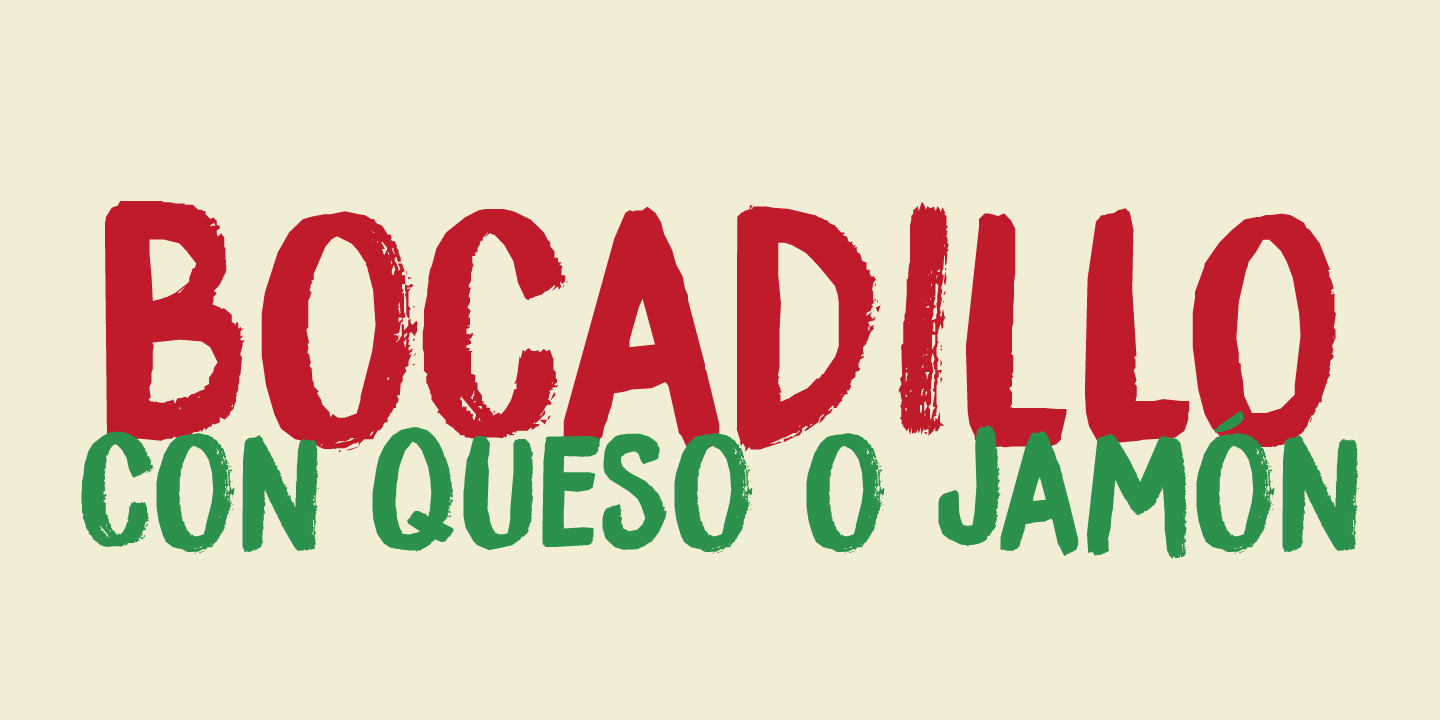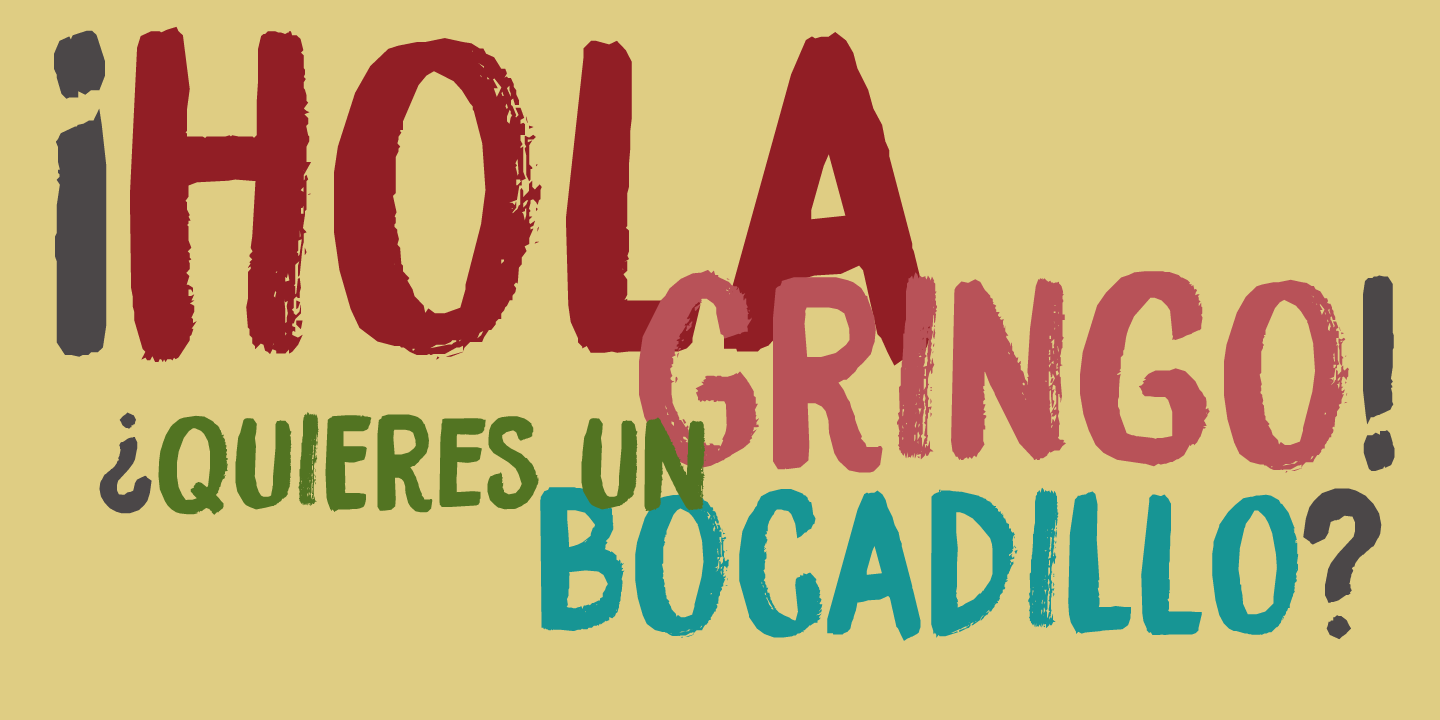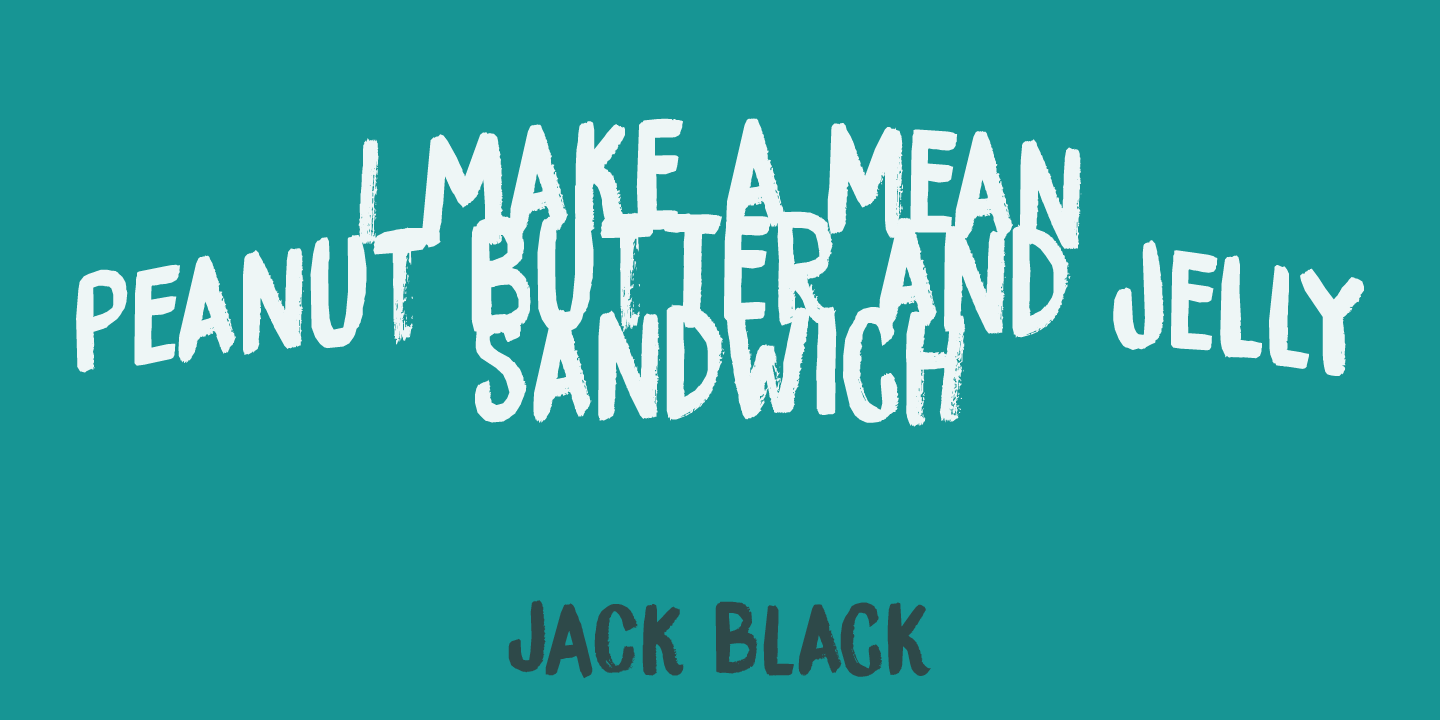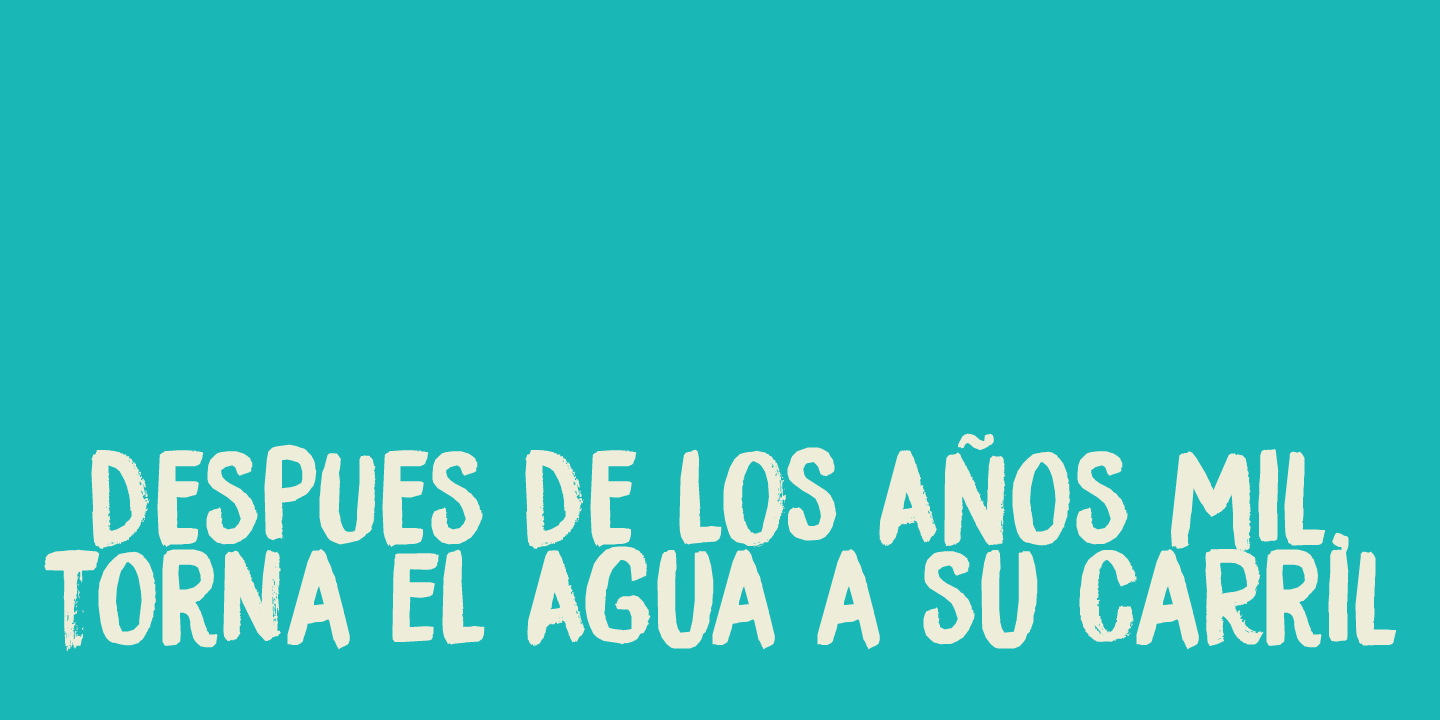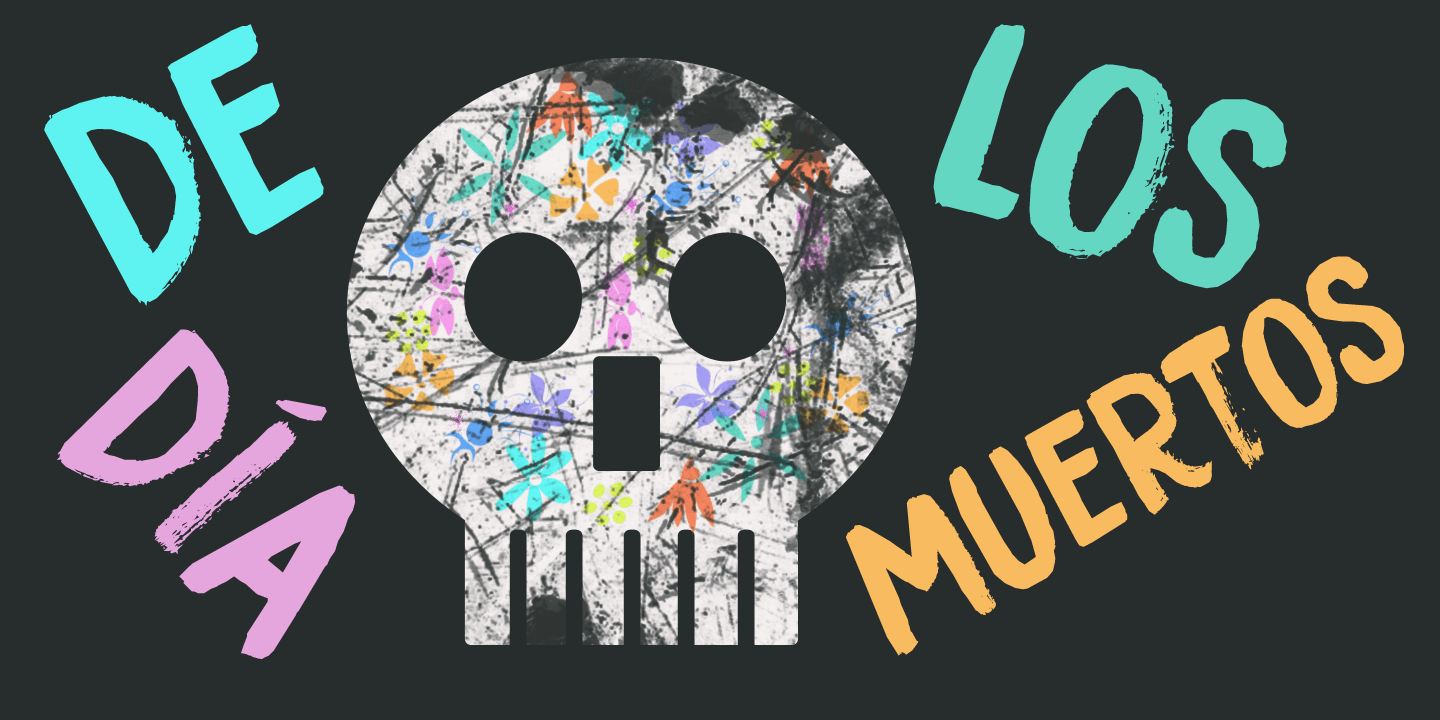
Bocadillo
A Bocadillo is a sandwich. I guess I was craving one when I had to name this font! Bocadillo is a sweet Brush script. It is all caps, but upper and lower case are different and like to mingle. It is an ideal font for product packaging, posters, book covers, postcards and big ?I love you? billboards. Comes with a generous helping of diacritics.
Bocadillo by Hanoded